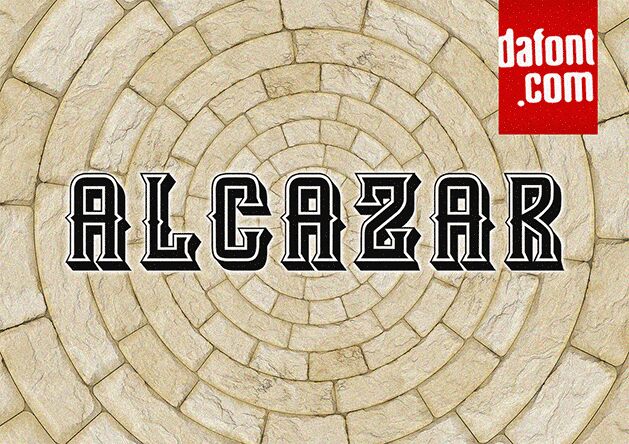
Alcazar font, crafted by Vladimir Nikolic, is a 3D retro display typeface with Victorian influence. Its condensed design showcases ornamental detailing and dramatic flair, ensuring an impactful and historic presence in any project.
This free font is ideal for book covers, posters, invitations, branding, logos, packaging design, headlines, banners and signage use. Experience Alcazar’s unique texturing in flyers exhibitions or creative events.